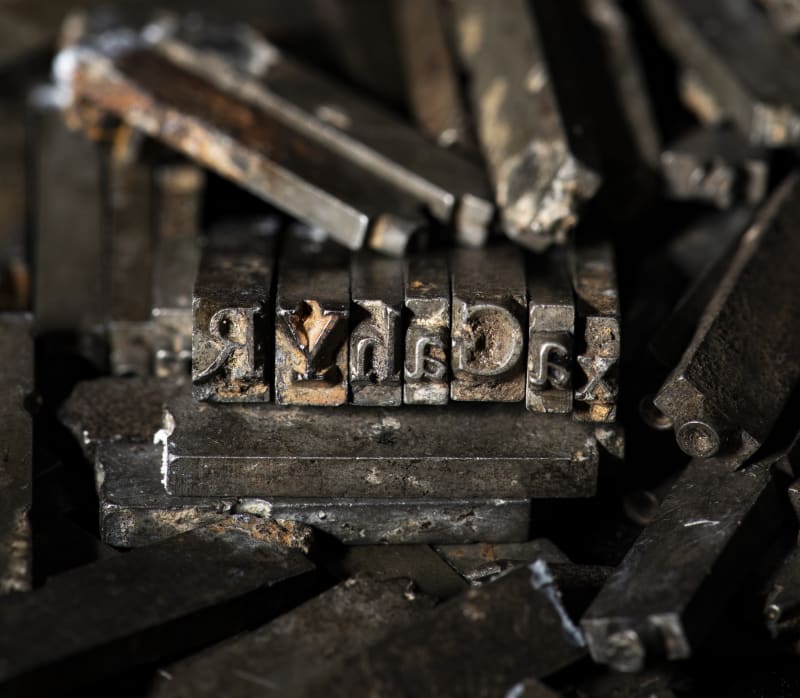
Remnants of the Doves typeface, a legendary Arts and Crafts typeface, have been recovered from the river Thames after being thrown into the water over a century ago. The typeface was dumped as an act of retribution between business partners. A graphic designer and mudlarks have found and digitized pieces of the typeface.